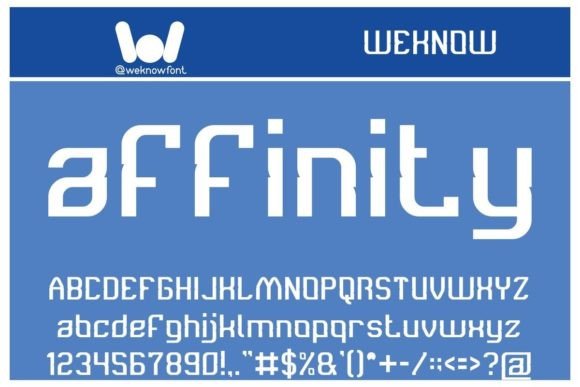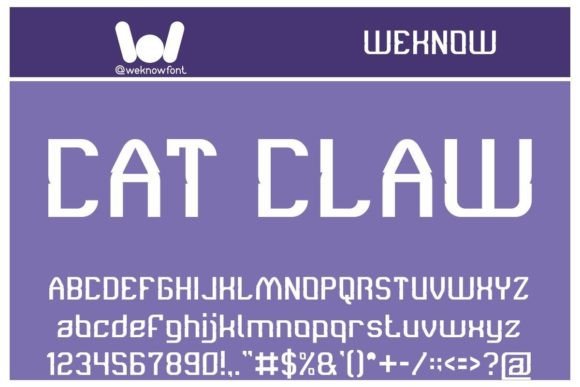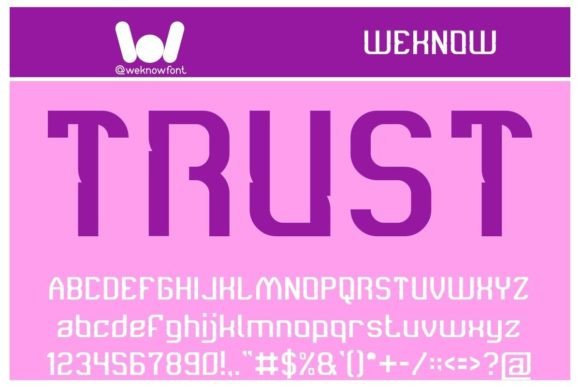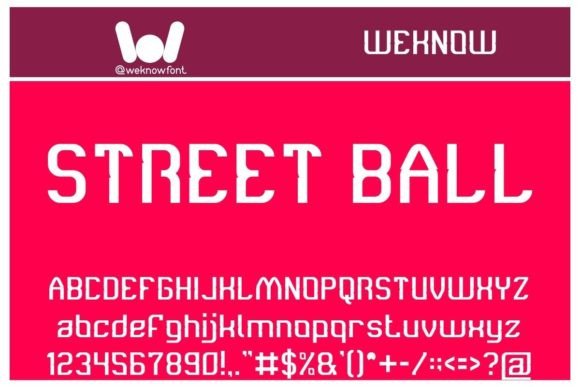
Introducing Family Tree: The Perfect Fancy Display Font for Your Creative Projects
Are you a designer, crafty DIY enthusiast, or creative professional looking for a unique and eye-catching font to elevate your projects? Look no further than Family Tree, a stunning fancy display font that’s perfect for a wide range of applications. In this article, we’ll explore the features and benefits of Family Tree, and show you how it can add a touch of elegance and sophistication to your designs.
What is Family Tree?
Family Tree is a beautifully crafted fancy display font that’s suitable for a variety of creative projects, including logos, logotypes, headlines, corporate identities, brand identities, apparel designs, posters, music and movie titles, games, magazines, books, comics, cartoons, YouTube and Instagram content, websites, and more. Its unique and intricate design makes it perfect for adding a touch of whimsy and personality to your designs.
Key Features of Family Tree
So what makes Family Tree such a great font? Here are some of its key features:
- Unique and eye-catching design: Family Tree has a distinctive and intricate design that’s sure to grab attention and add visual interest to your projects.
- High-quality and versatile: This font is perfect for a wide range of applications, from logos and branding to posters, magazines, and websites.
- Easily customizable: Family Tree can be easily customized to fit your project’s specific needs, making it a great choice for designers and crafters.
Who Can Benefit from Family Tree?
Family Tree is perfect for a variety of designers, crafters, and creative professionals, including:
- Graphic designers: Add a touch of elegance and sophistication to your logos, branding, and marketing materials.
- DIY enthusiasts: Use Family Tree to create beautiful and unique crafts, such as handmade cards, invitations, and decorations.
- Web designers: Elevate your website designs with a font that’s both stylish and easy to read.
- Social media influencers: Stand out on social media with eye-catching graphics and typography.
- Artists and illustrators: Use Family Tree to add a touch of personality and whimsy to your artwork.
How to Use Family Tree
Using Family Tree is easy! Here are a few tips to get you started:
- Pair it with a simple font: Balance out the intricacy of Family Tree by pairing it with a simple, easy-to-read font.
- Experiment with colors and textures: Add depth and visual interest to your designs by experimenting with different colors and textures.
- Use it sparingly: Because Family Tree is such a distinctive font, it’s best to use it sparingly to avoid overwhelming your design.
Family Tree is a stunning fancy display font that’s perfect for designers, crafters, and creative professionals looking to add a touch of elegance and sophistication to their projects. With its unique and eye-catching design, high-quality and versatility, and ease of customization, Family Tree is a great choice for a wide range of applications. So why wait? Download Family Tree today and start elevating your designs to the next level!
Whether you’re a seasoned designer or a crafty DIY enthusiast, Family Tree is sure to inspire your creativity and help you create beautiful and unique projects that stand out from the crowd. So go ahead, get creative, and show the world what you can do with Family Tree!